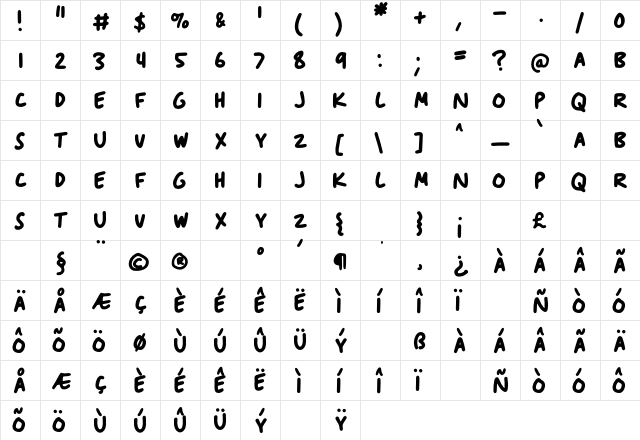
Anitype Journal 2
Design Context for Anitype Journal Typeface
Anitype Journal is a composed and adaptable typeface that performs quietly and consistently across a wide range of design contexts.